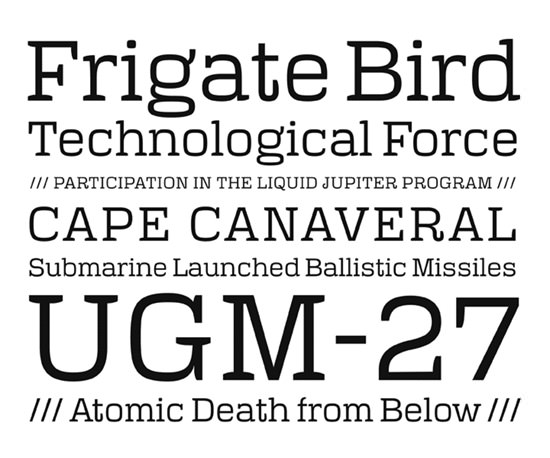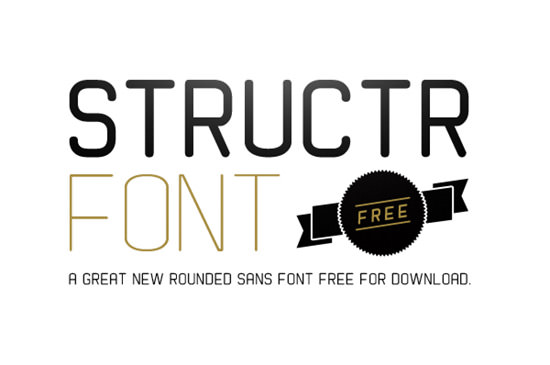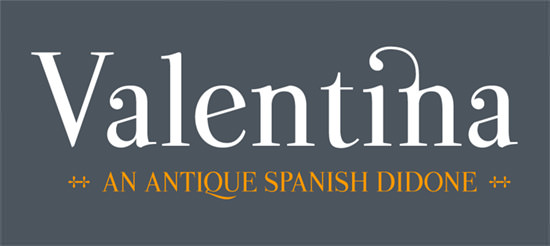
Our friends at Noupe.com have given us a list of 44 Fonts For Creative Designers, most free for private AND commercial use! Please read any Terms of Use or Licensing Agreements carefully. Below you’ll find some examples of the types of fonts on offer. There are a lot more – I recommend visiting the post and having a look for yourself.
There aren’t any script or handwriting fonts, no dingbats or ornamental fonts – these are the workhorses in the artist’s toolbox, base fonts on which you build our designs. Have fun!